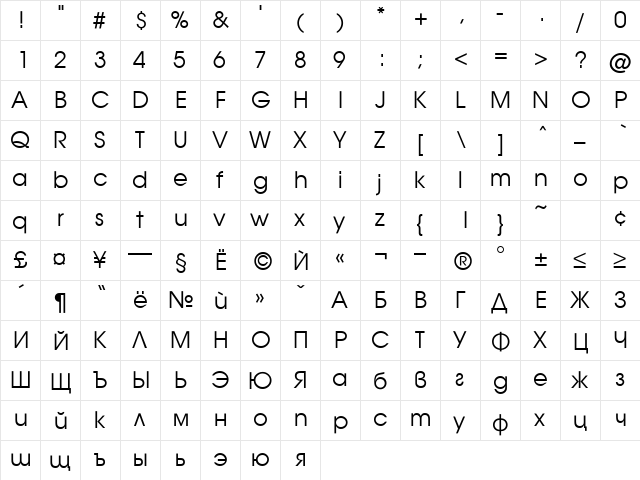
AvantiB Normal
Design Context for AvantiB Typeface
AvantiB takes a measured approach to typography — its balanced proportions and neutral character make it a reliable workhorse for both digital and print work.